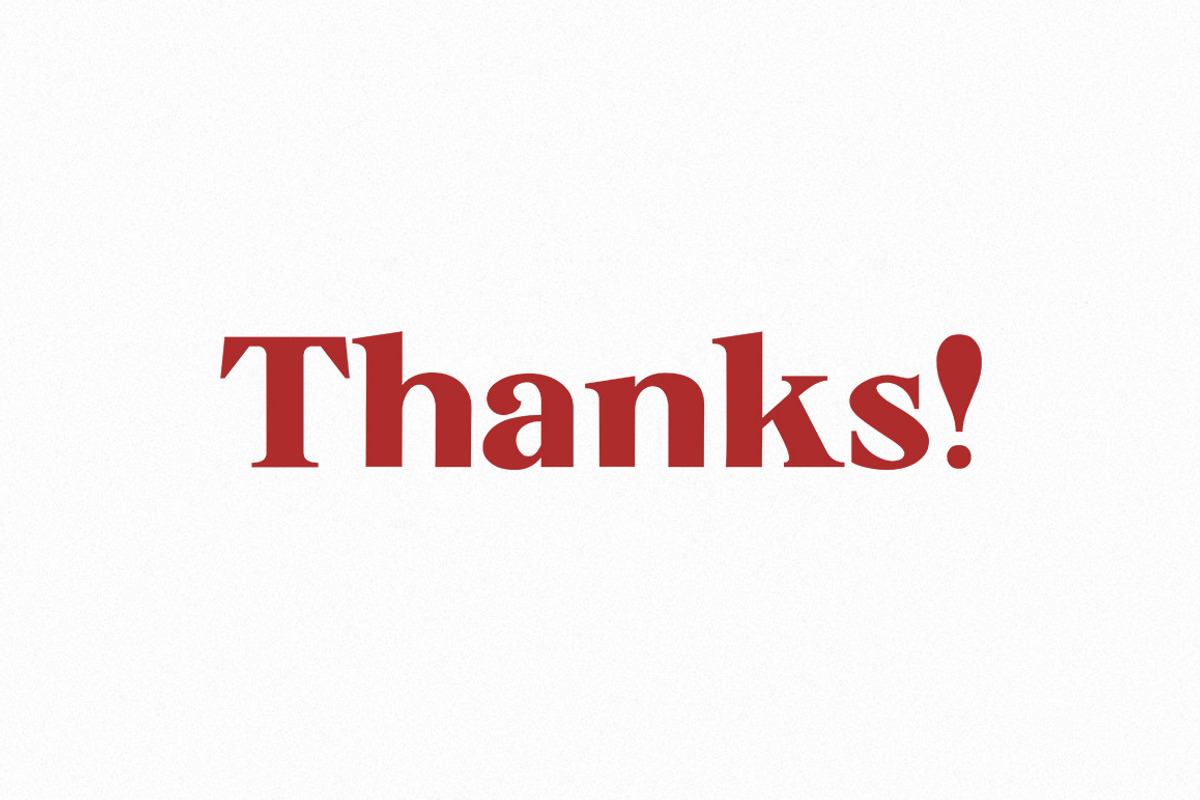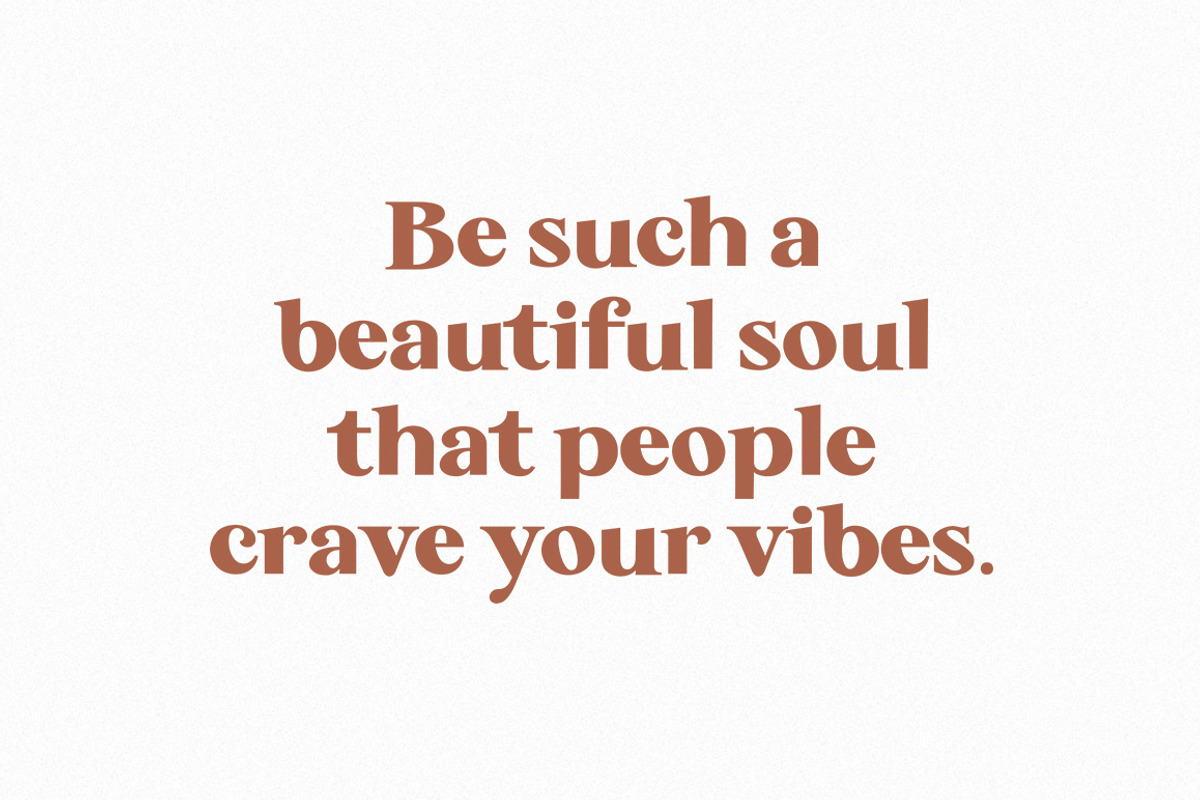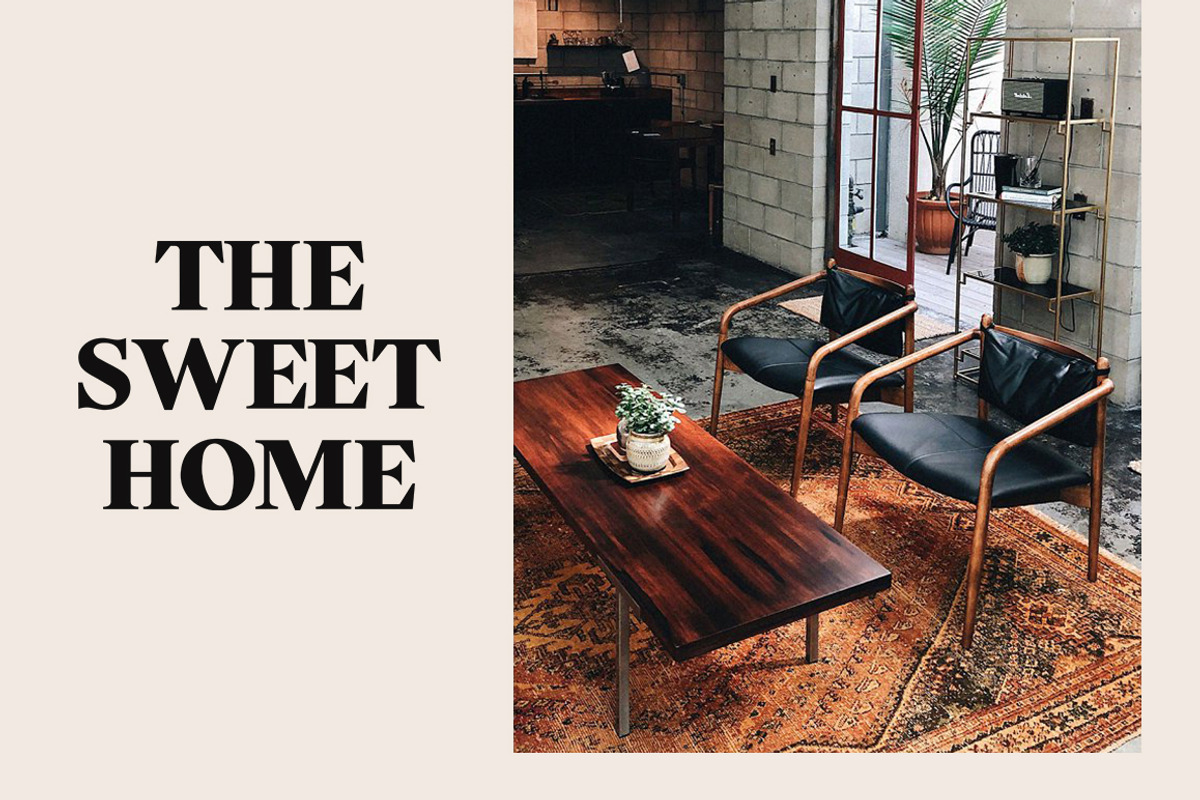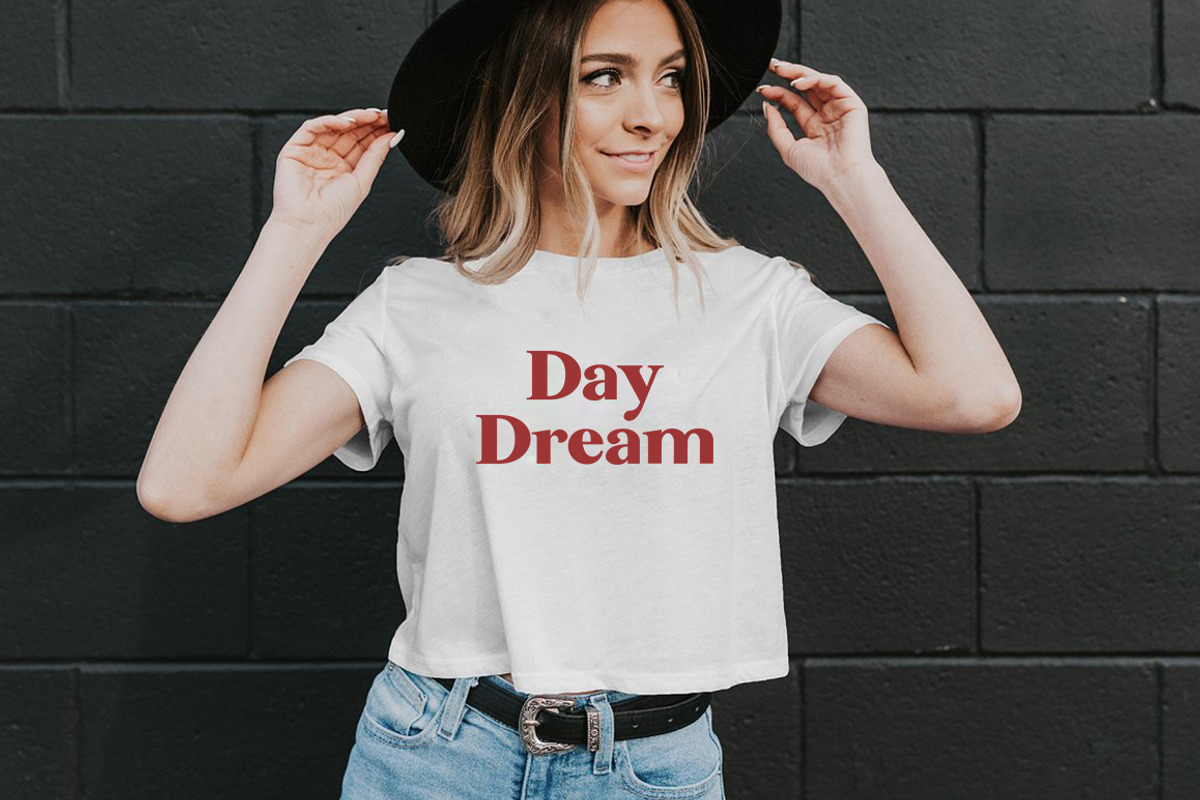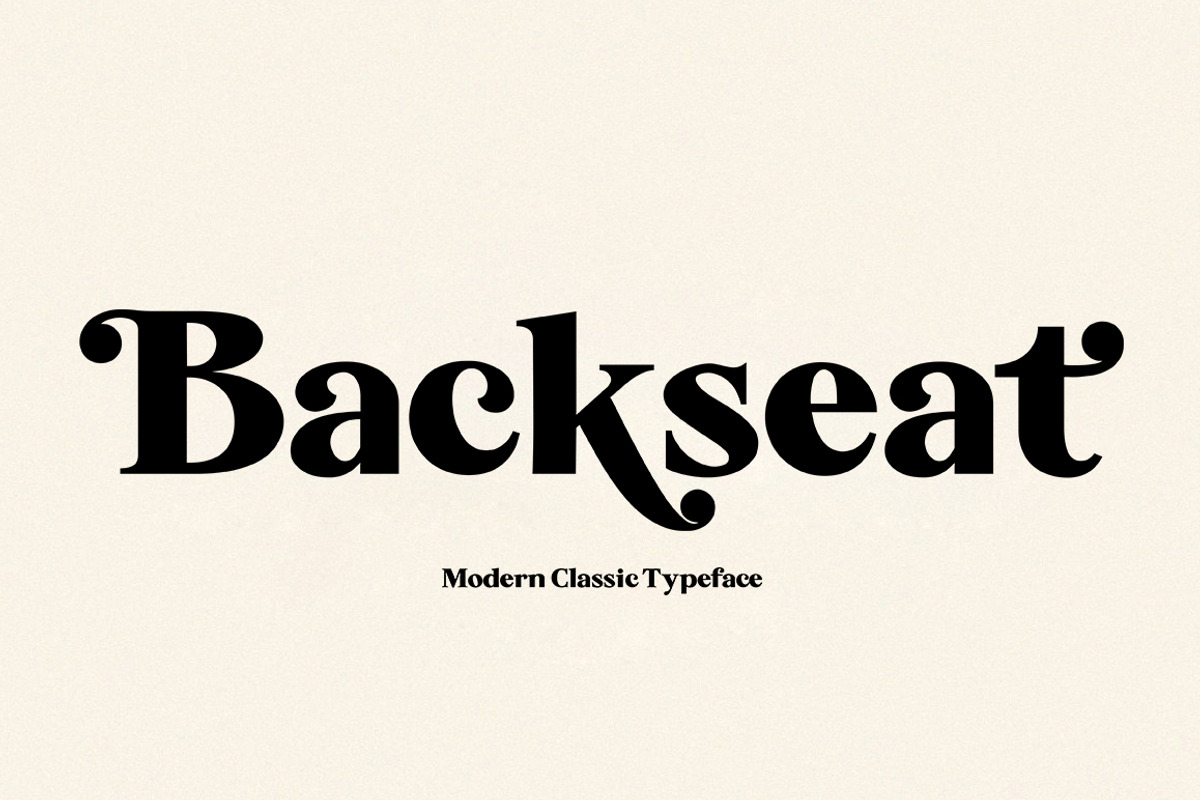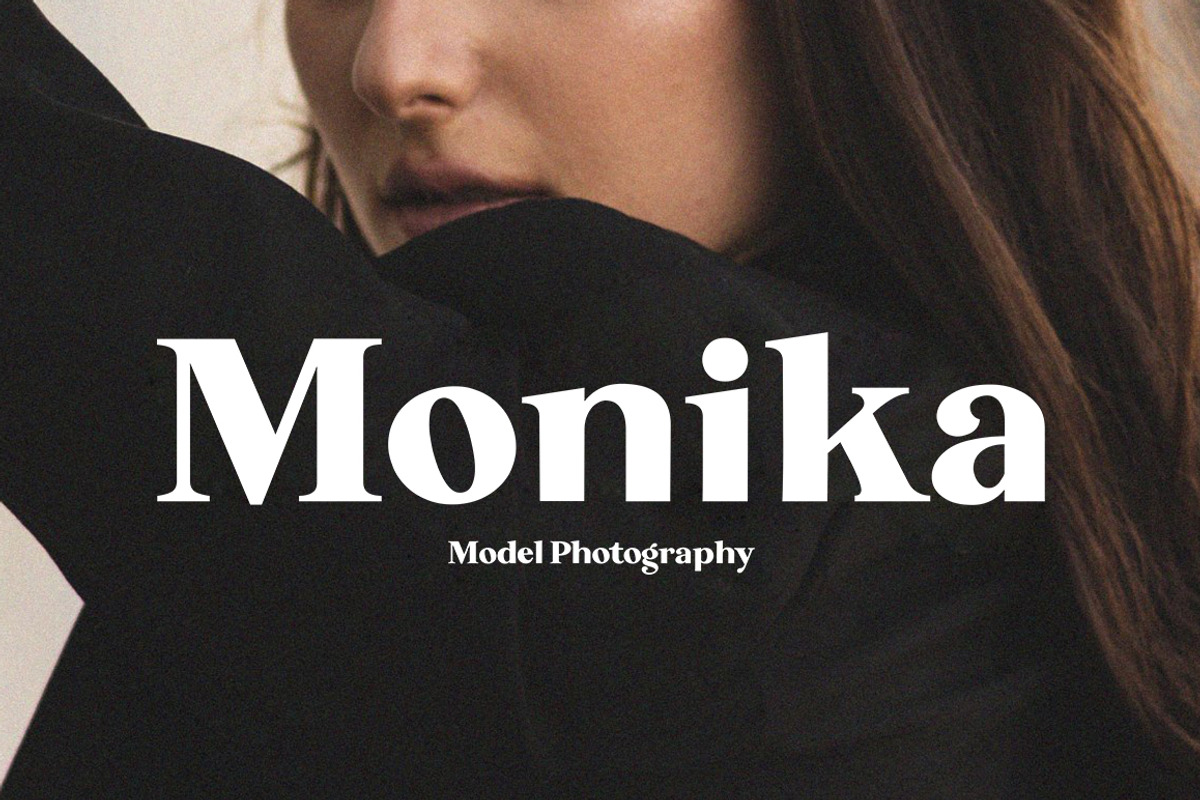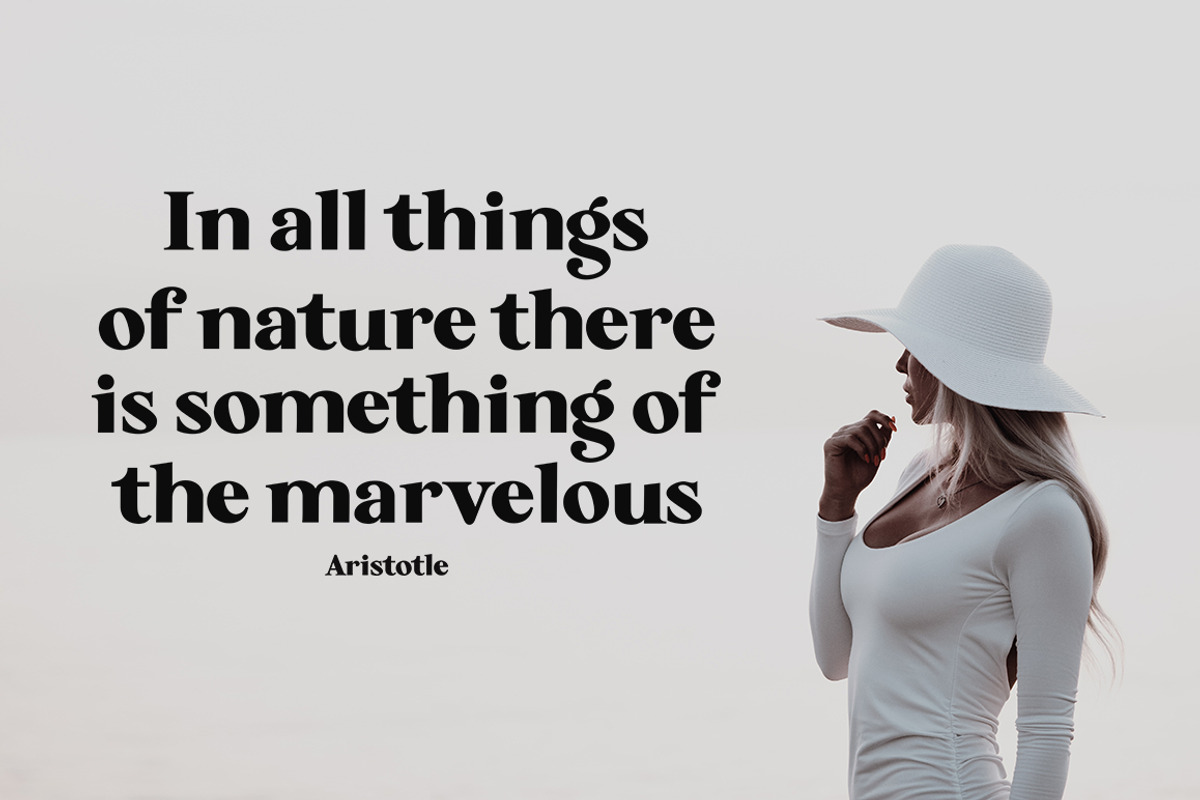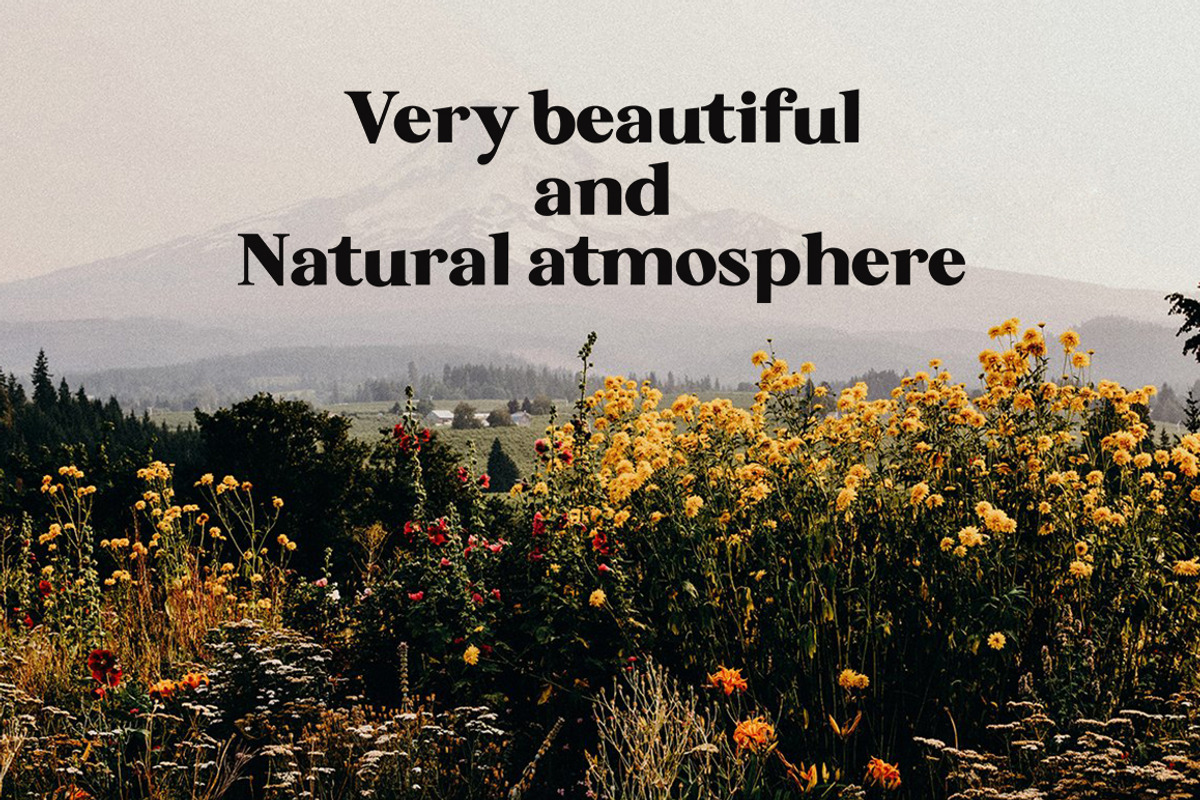
Backseat - Serif Typeface
Backseat is a typeface yet bold serif font with a modern twist, thoughtfully crafted for elegant, contemporary projects. This versatile typeface is an excellent choice for clean, nostalgic designs in applications like logos, packaging, editorial work, and beyond. Let Backseat elevate your designs with its timeless elegance and sophistication.